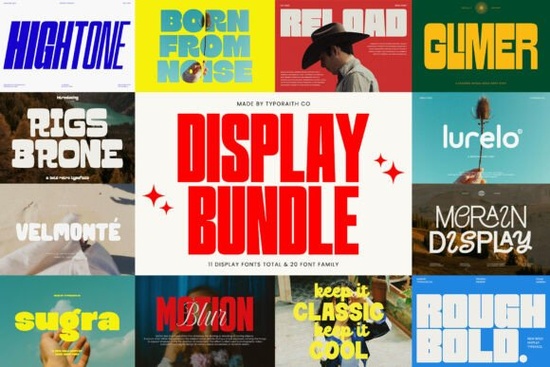
When you need to make a strong visual statement, the Display Bundle Font is a collection of 11 premium display fonts that gives you 20 font families to work with. It covers everything from bold sans-serifs to soft retro rounded shapes, so you have options for different moods and projects. Whether you design for print-on-demand, social media, or branding, this bundle gives you a solid foundation without needing to hunt for individual fonts.
What styles come in this bundle?
The bundle mixes typefaces that work well in both digital and print contexts. You’ll find clean modern fonts that hold up on screens, as well as decorative styles with more personality. Some families lean into vintage vibes, while others stay minimal and sharp. This variety makes it easier to switch between a professional logo and a playful poster without losing consistency.
For example, if you need something with a nostalgic twist, the Tropique style brings in warm rounded letterforms. On the other hand, Bubblegum Sans feels energetic and bold, which can be great for product labels or eye-catching headers. Having both extremes in one set saves time when you’re testing different directions for a project.
How can print-on-demand sellers use these fonts?
Print-on-demand businesses rely on typography that stands out on products like t-shirts, mugs, and wall art. These display fonts are designed to grab attention, especially when used for short phrases or single words. A heavy sans-serif can give a modern apparel design an instant edge, while a retro font might feel more approachable for home decor items.
Many sellers experiment with layered typography. The bundle’s balanced spacing and consistent character shapes make it easier to stack words without things looking messy. You can pair a solid uppercase font from the set with a lighter script for contrast. The key is to keep readability high, and these typefaces are built for that.
How do you pick the right display font for a project?
It depends on the audience and the medium. For a children’s book cover, you might go with a rounded, friendly typeface from the set. For a tech startup’s landing page, a bold geometric font from the bundle could communicate reliability and modern thinking. The bundle gives you the ability to test different feels quickly. Start by identifying the core emotion you want the text to convey: trustworthy, playful, urgent, or calm. Then scan the bundle for a font that matches that tone.
Pairing fonts from the same bundle often works well because they share similar construction principles. If you’re designing a poster with a headline and body text, try matching a decorative display font with a simpler sans-serif from the same collection. This keeps the design polished without requiring advanced typography skills.